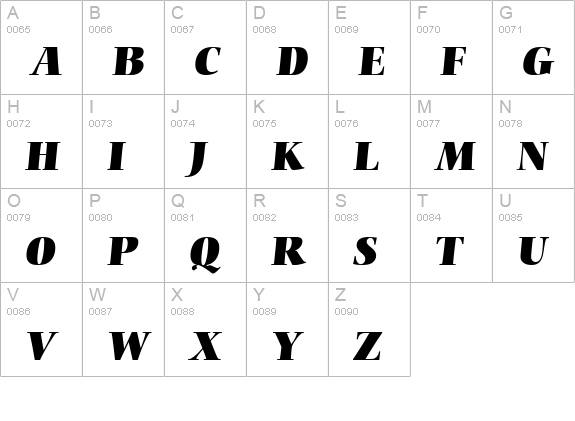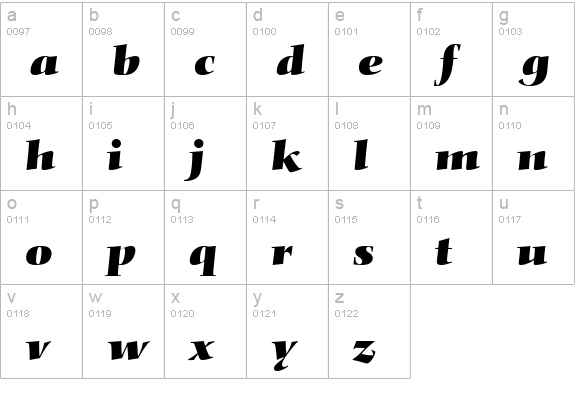
Nofret Bold Italic is a strong, high-contrast, italic variant in the Nofret typeface family \xE2\x80\x94 well suited to headlines, attention-grabbing titles, and strong calls-to-action.
Nofret Bold Italic font is a stunning display typeface that exudes elegance and sophistication. Its bold and italic design adds a touch of modernity to any project, making it perfect for headlines, titles, and other attention-grabbing text. The sleek curves and sharp angles of Nofret Bold Italic create a sense of dynamism and movement, making it stand out from the crowd. Best of all, Nofret Bold Italic font is available for free download at FontsMarket.com. This means you can easily add this striking typeface to your design arsenal without breaking the bank. Whether you're working on a personal project or a professional assignment, Nofret Bold Italic font is sure to make a bold statement and leave a lasting impression on your audience.